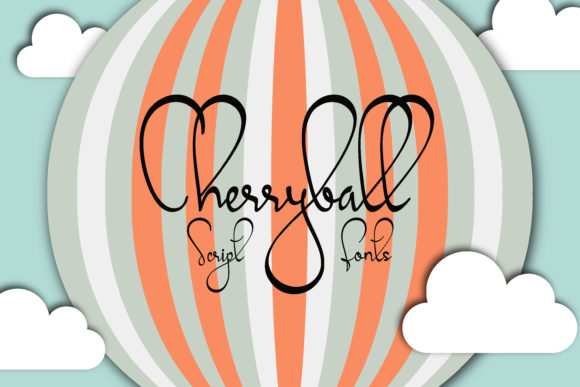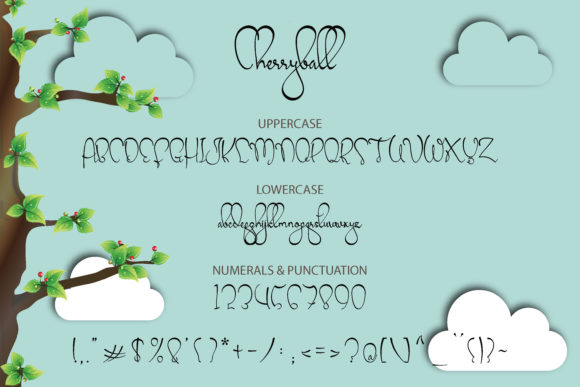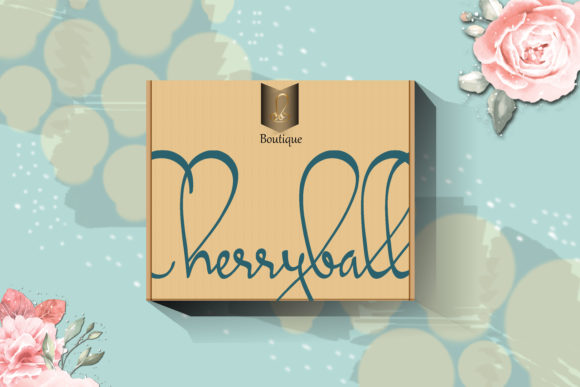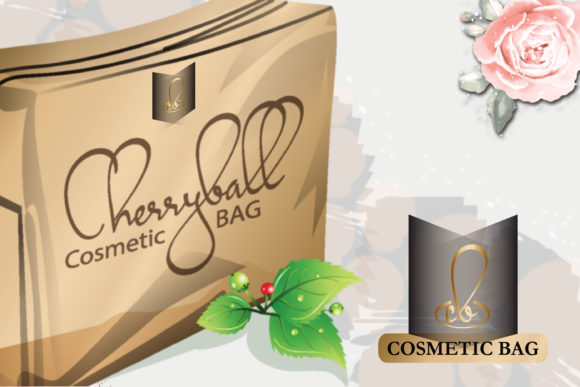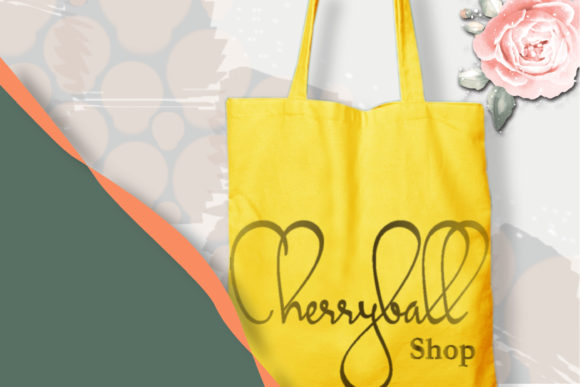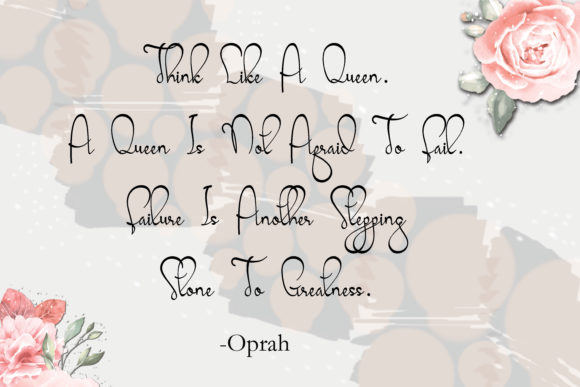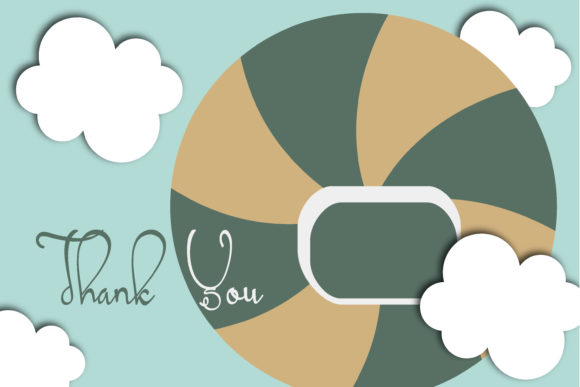
HomeScript FontsCherryball Font Script Fonts Cherryball Font FacebookXPinterestWhatsApp Cherryball Font Poster 2 Cherryball Font Poster 3 Cherryball Font Poster 4 Cherryball Font Poster 5 Cherryball Font Poster 6 Cherryball Font Poster 7 About Cherryball Font Cherryball is a cool and fun script font with a unique vibe. Get inspired by its charming feel! DOWNLOAD ON CREATIVE FABRICAThis font is sold and delivered by Creative Fabrica. Font Canyon may earn a commission if you buy through this link. People also explored Bellatina Script Font Baynaa Font Phaeton Font Jackbaya Font Sotrendy Font Jeasland Script Font Aglaja Font Flower Pattern Font Scary Spider Monogram Font 292 0 TagsCherryball Font Previous articleBecreatives FontNext articleRamstay Font LEAVE A REPLY Cancel reply Comment: Please enter your comment! Name:* Please enter your name here Email:* You have entered an incorrect email address! Please enter your email address here Website: Save my name, email, and website in this browser for the next time I comment. Personal Use Free Awesome Snowflakes Font Personal Use Free Read more about this font Darla Personal Use Free Read more about this font Expaing Personal Use Free Read more about this font Bintang Noela Personal Use Free Read more about this font BLOG Exploring Font Trends Shaping Communication in the Digital Era Fonts, like all design elements, are subject to trends. They play a crucial role in communicating a brand's personality,... To increase your work productivity, choose the most readable fonts. The 10 Best Handwriting Fonts to Add Personality to Your Designs Transform Your Website: Elevate Your Typography with 7 Best Web Font Generators